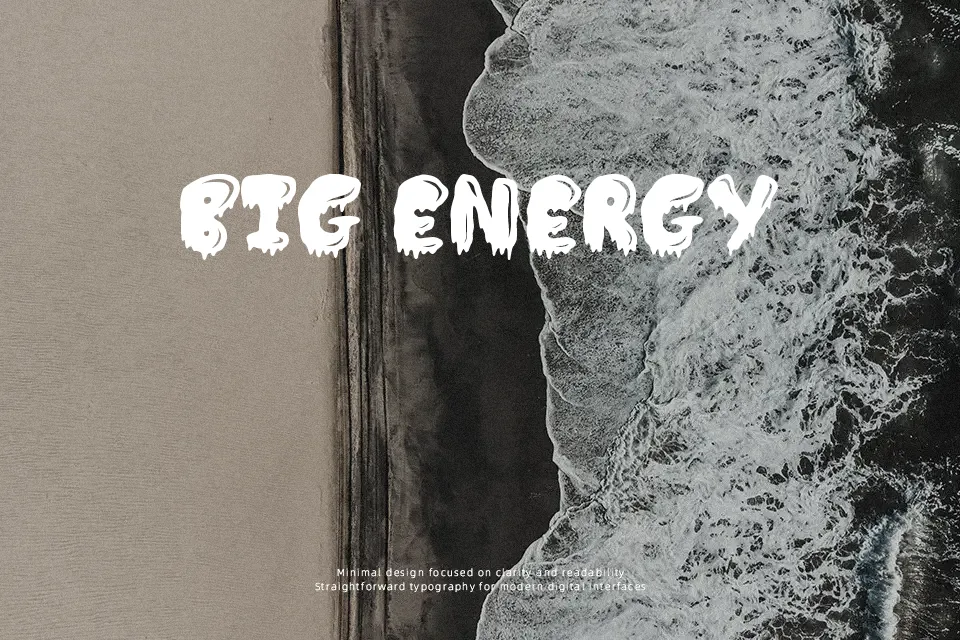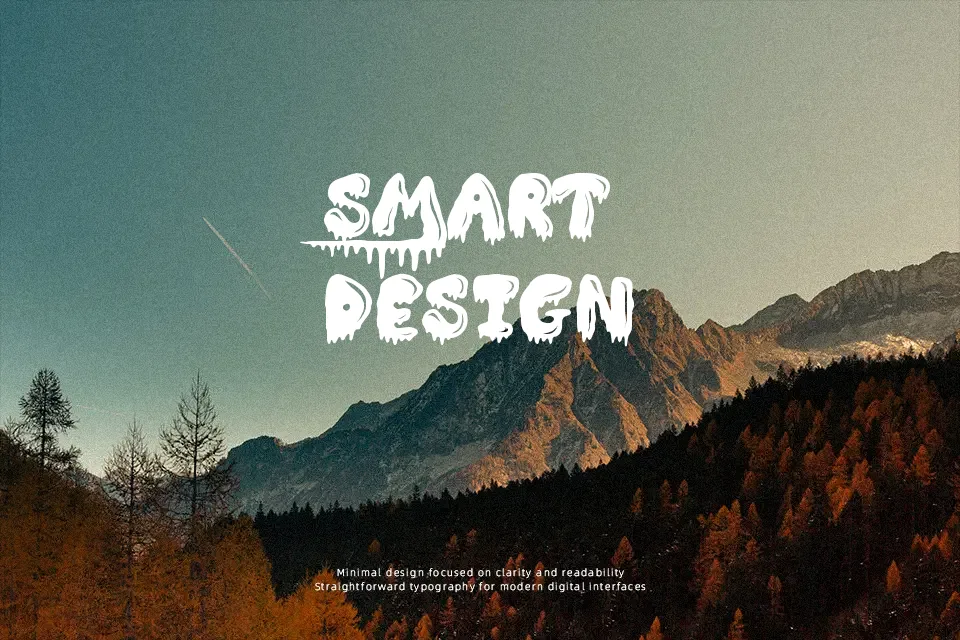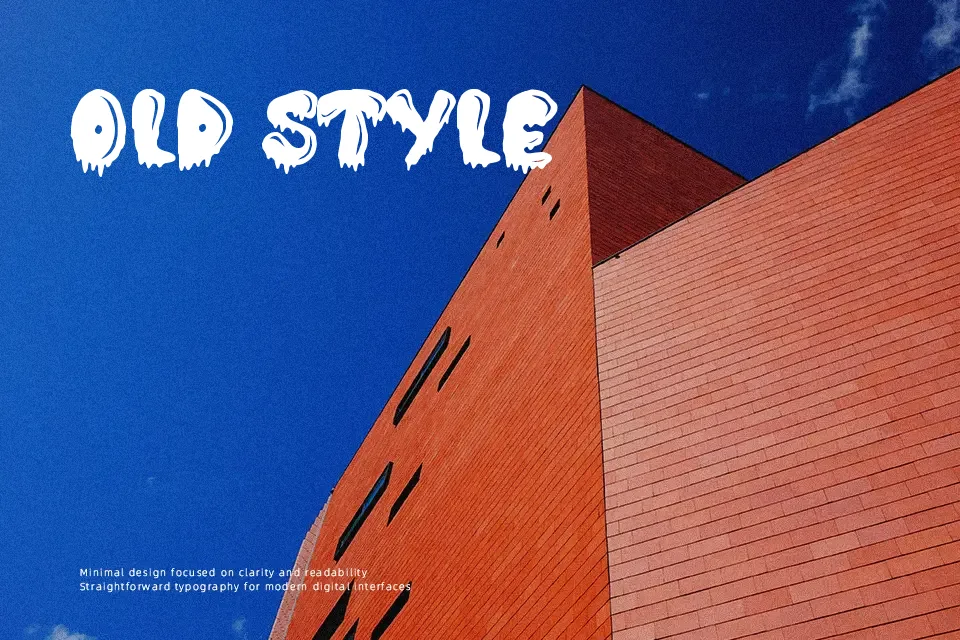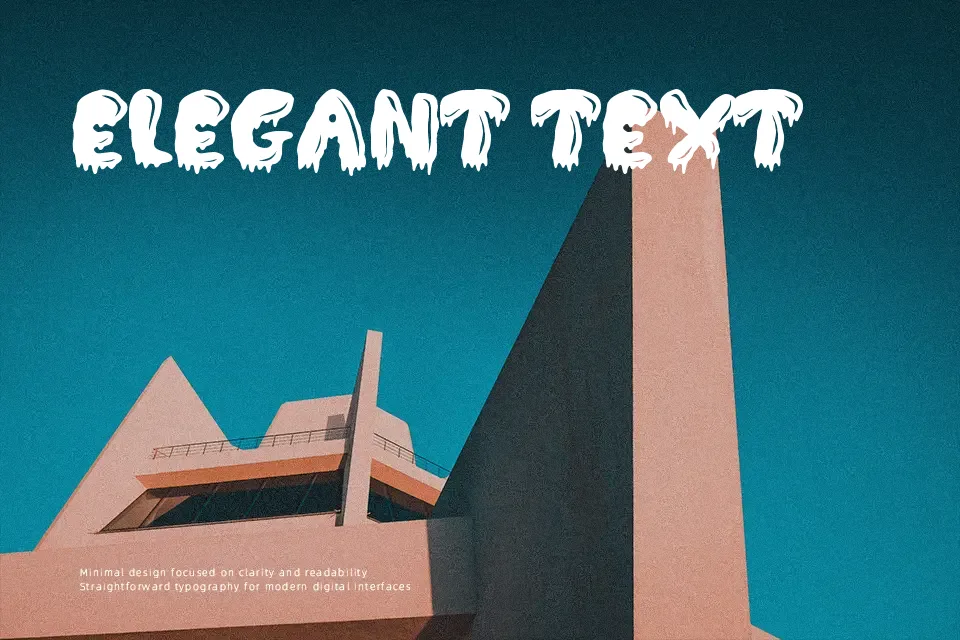
Slimed Font
Designed by JSH creates
Slimed Font introduces a playful decorative display structure defined by chunky cartoon letterforms dripping with fluid, viscous droplets. The overall anatomy features generous rounded proportions and thick, consistent strokes that establish an energetic visual rhythm across horizontal text strings. Moderate character spacing prevents the hanging drip details from colliding, though letterforms maintain tight overall cohesion in thematic event posters, apparel graphics, and amusement park signage. When scaled down, the dense silhouettes and intricate liquid accents cause visual clutter, compromising readability in running paragraphs and dense data tables. The design delivers maximum personality when isolated in standalone headlines.
Best For: halloween event posters,arcade game titles,themed apparel graphics,comic book covers
Not Ideal For: continuous paragraph text,corporate annual reports,mobile interface body copy,dense spreadsheet tables
Perfect for gaming, halloween, and headline, with a bold and cartoon style.